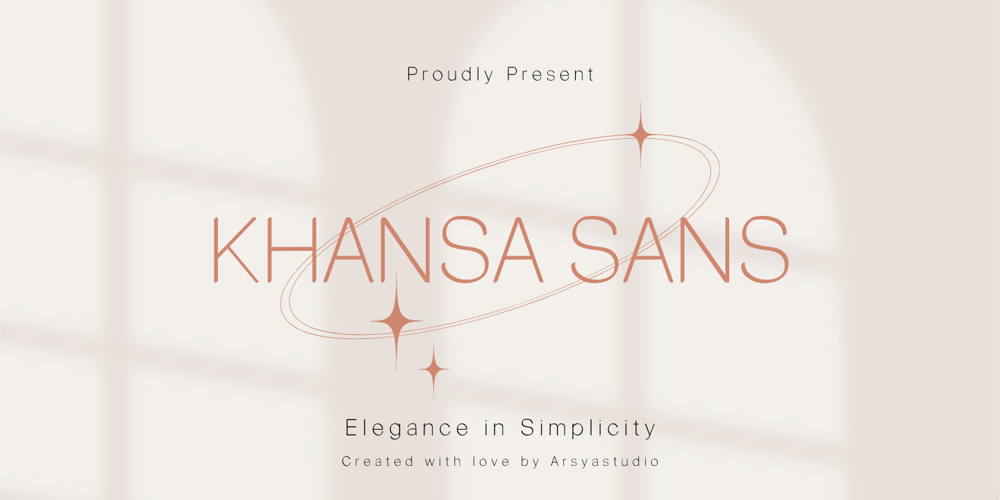
Khansa sans
Khansa sans font
Khansa sans Font Family was designed by published by Arsya Studio. Khansa sans contains 1 styles and family package options. Khansa Sans: Elegance in SimplicityKhansa Sans is a sans-serif font that seamlessly blends elegance with simplicity. Its delicate, thin lines exude a modern and minimalist vibe while maintaining a warm and approachable character. Perfect for a variety of design needs, from luxurious branding to clean and professional editorials.Crafted for visual harmony, Khansa Sans offers an aesthetic that is both captivating and easy to read. Its balanced and proportionate characters make it an ideal choice for designers who value precision without compromising clarity.